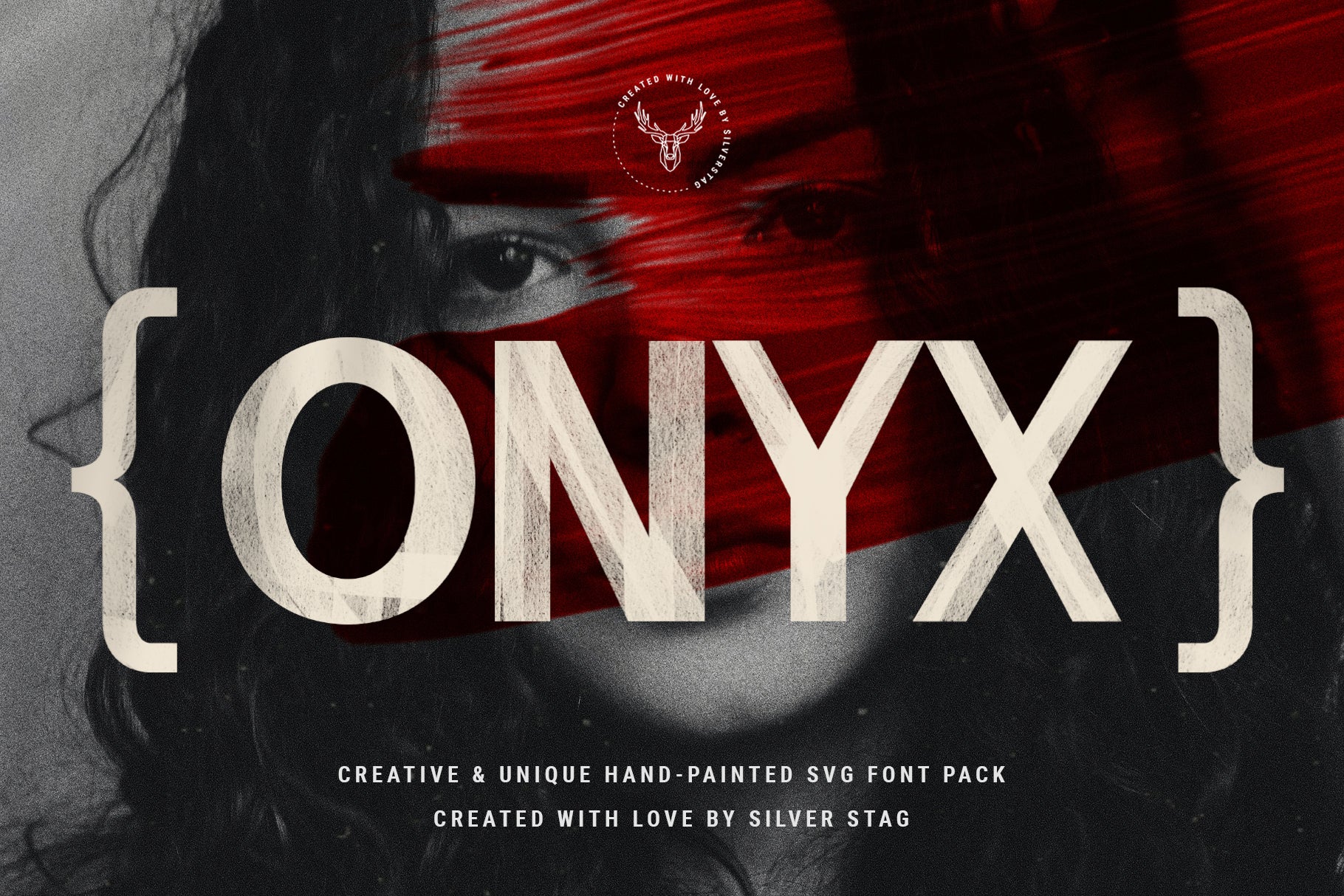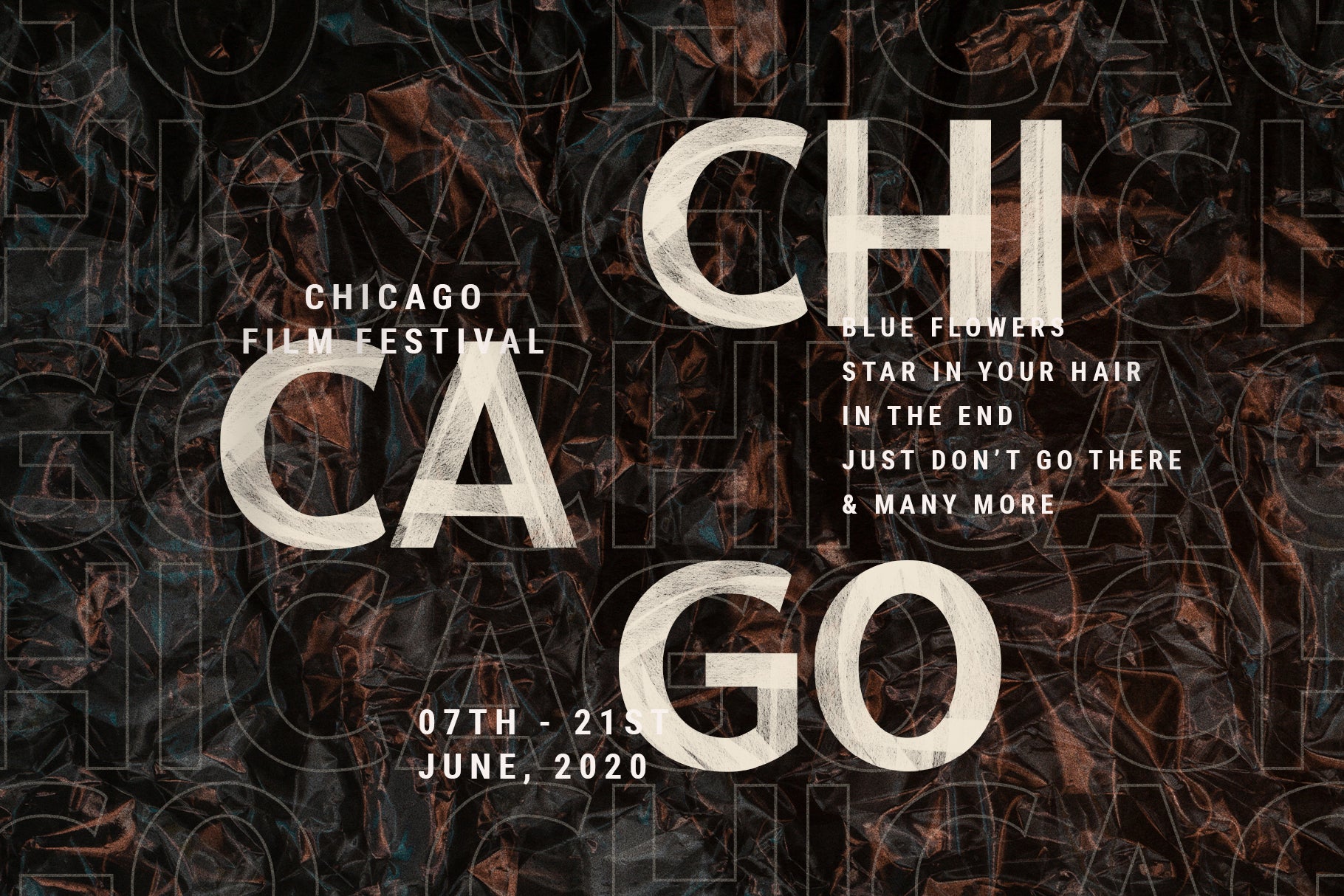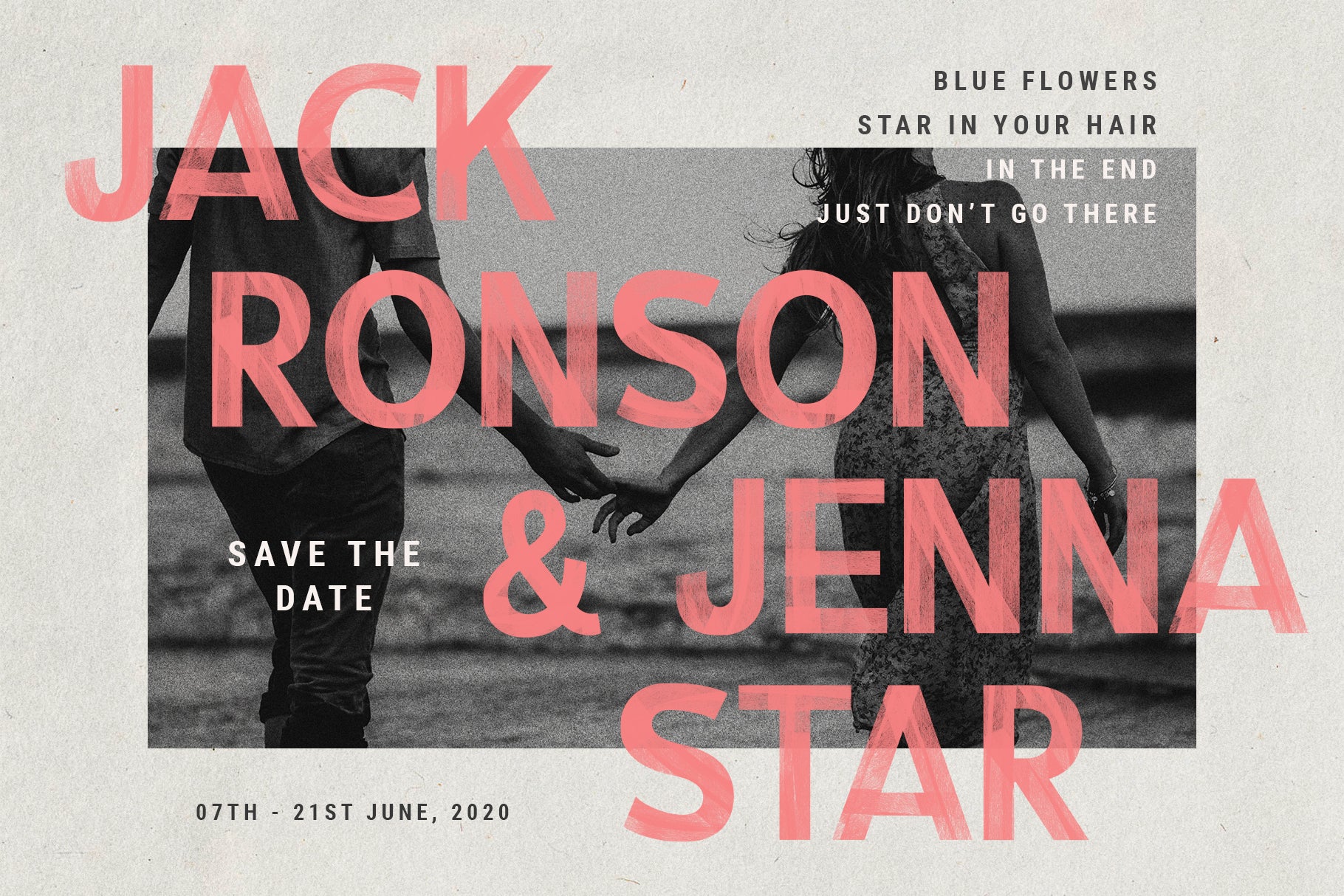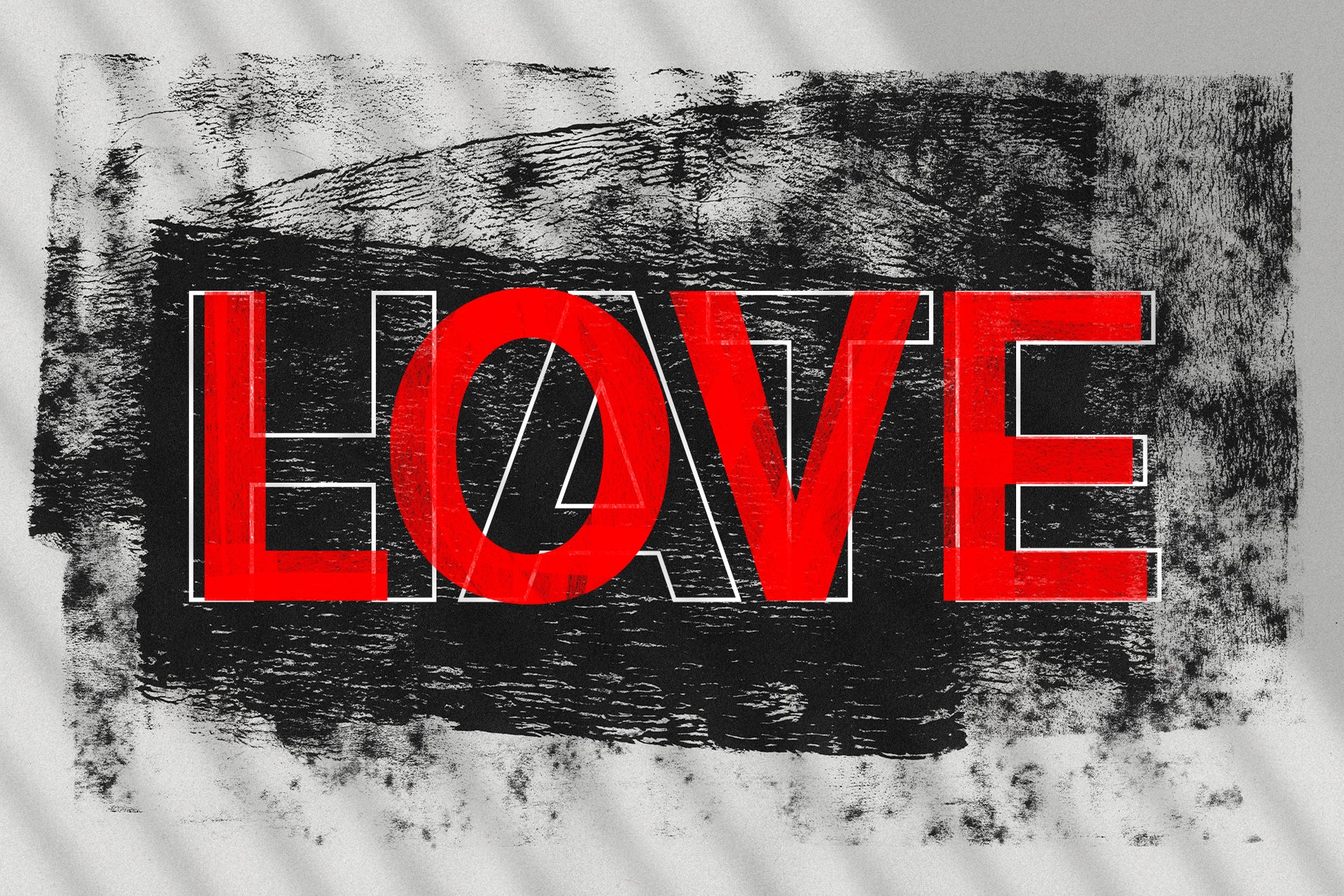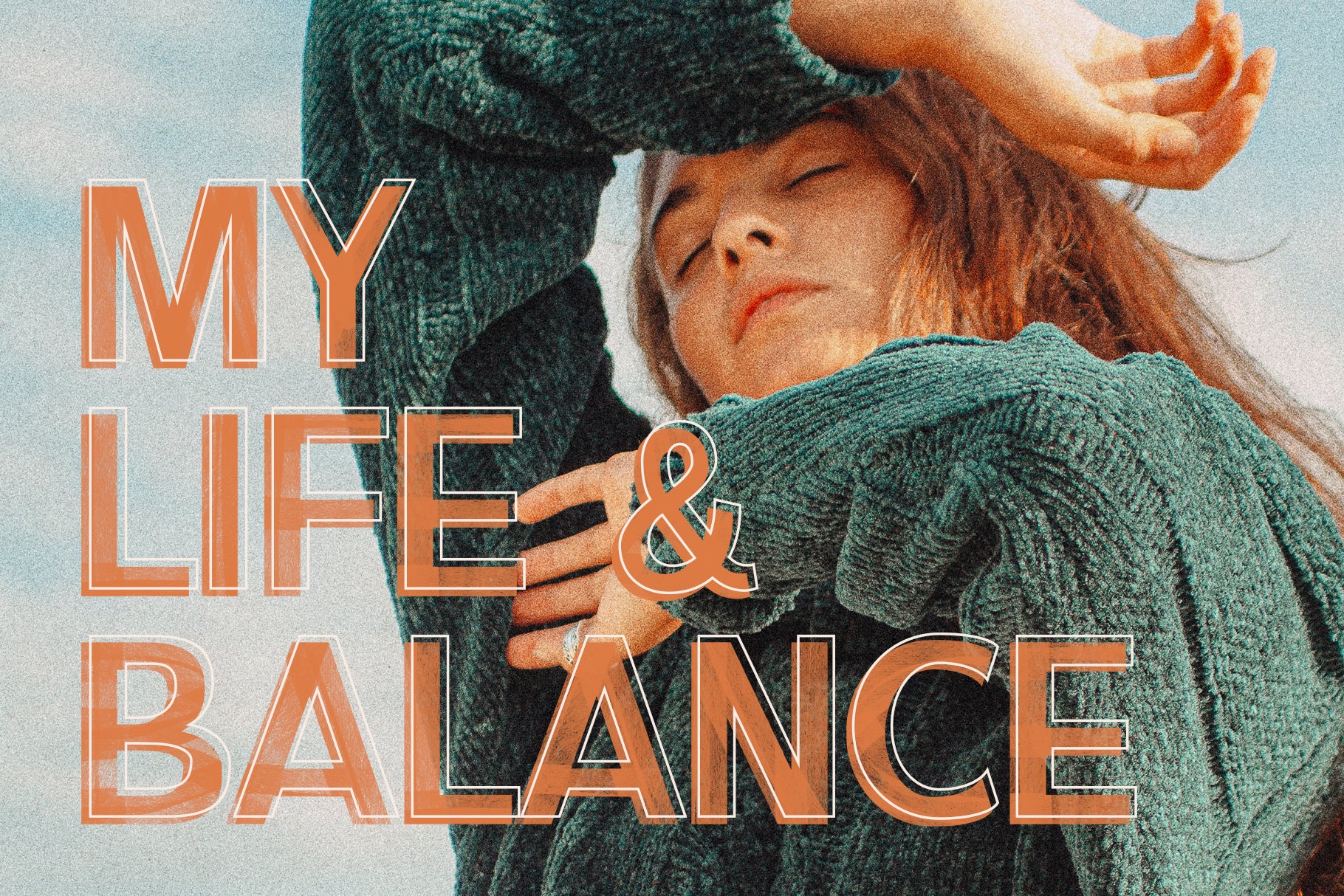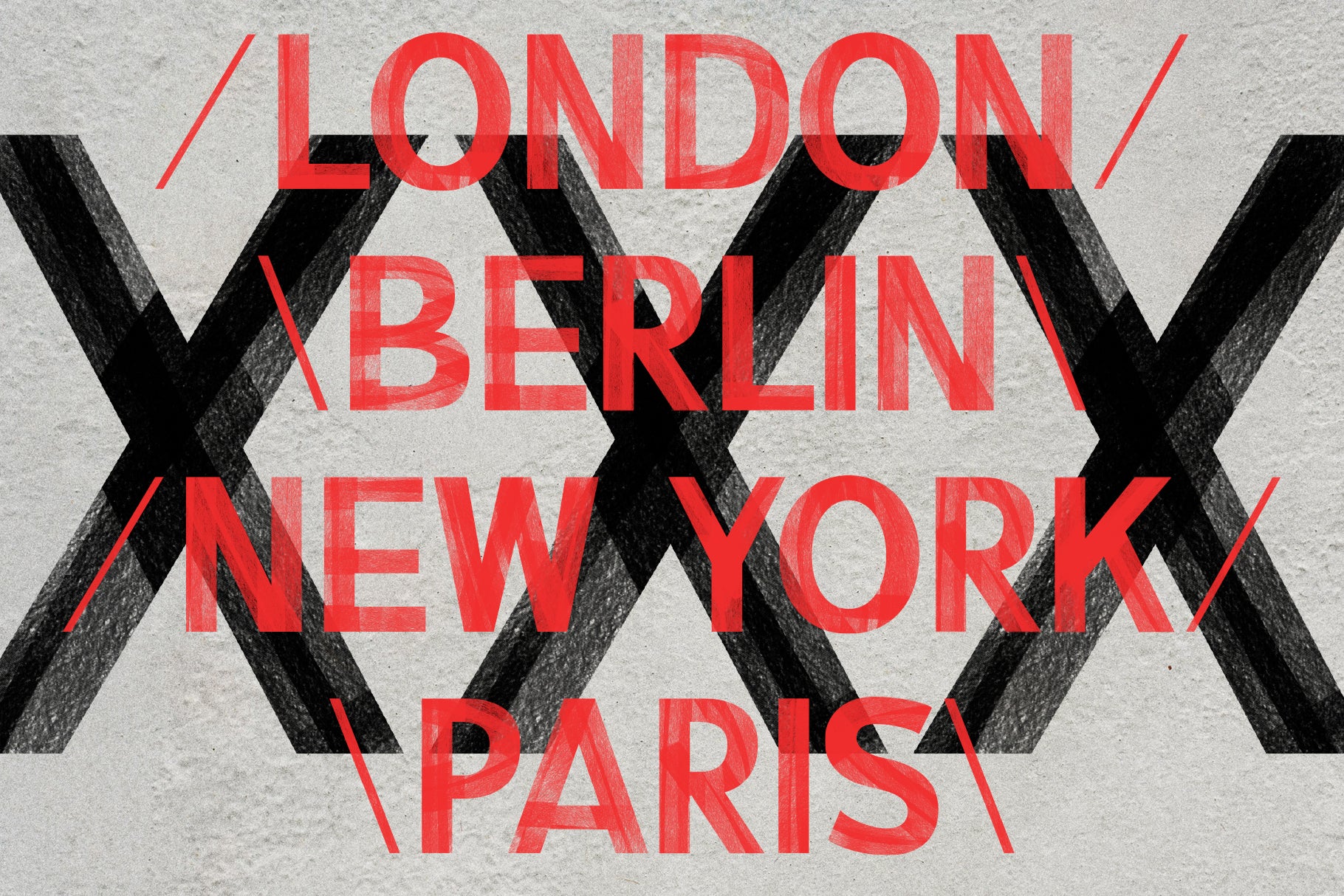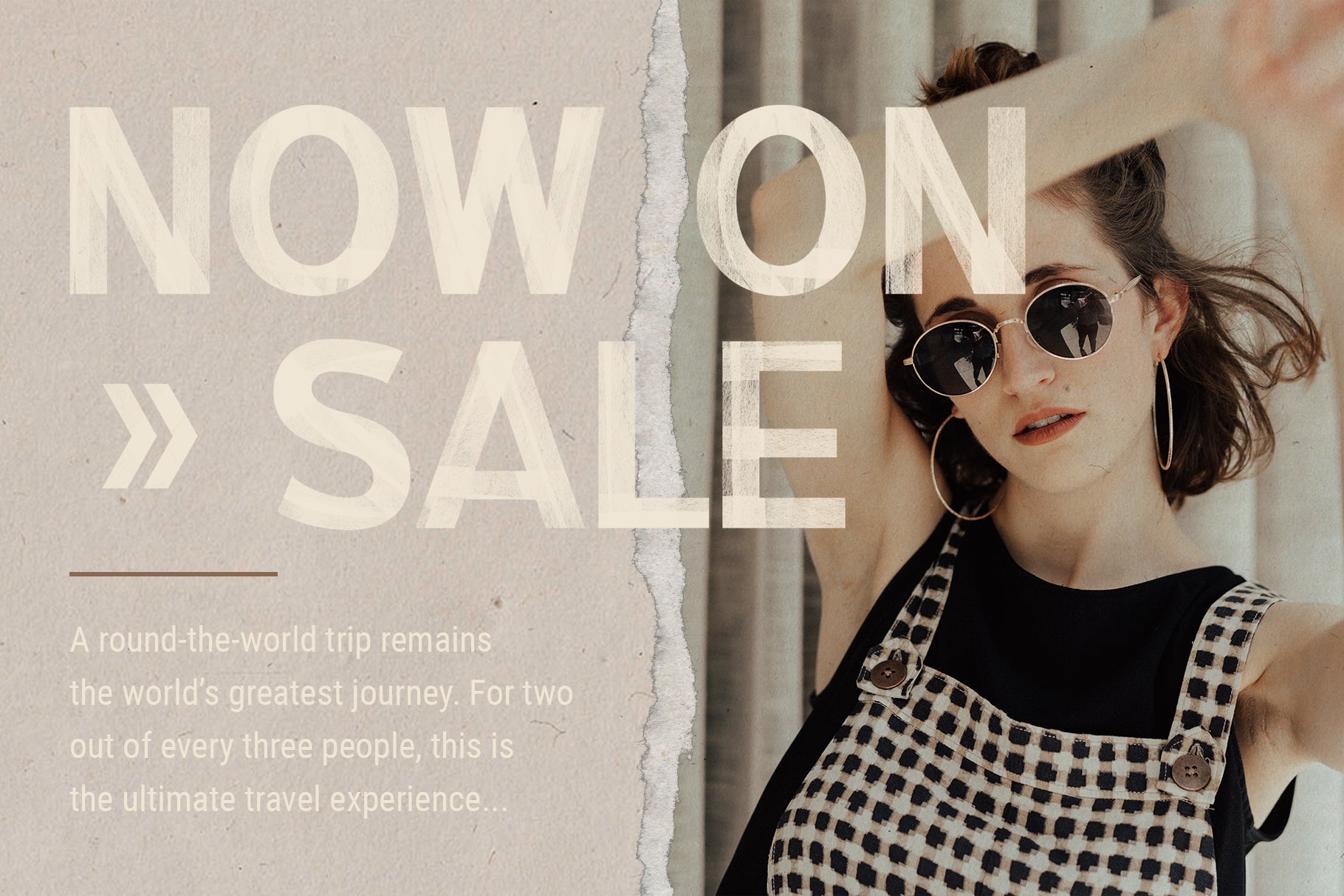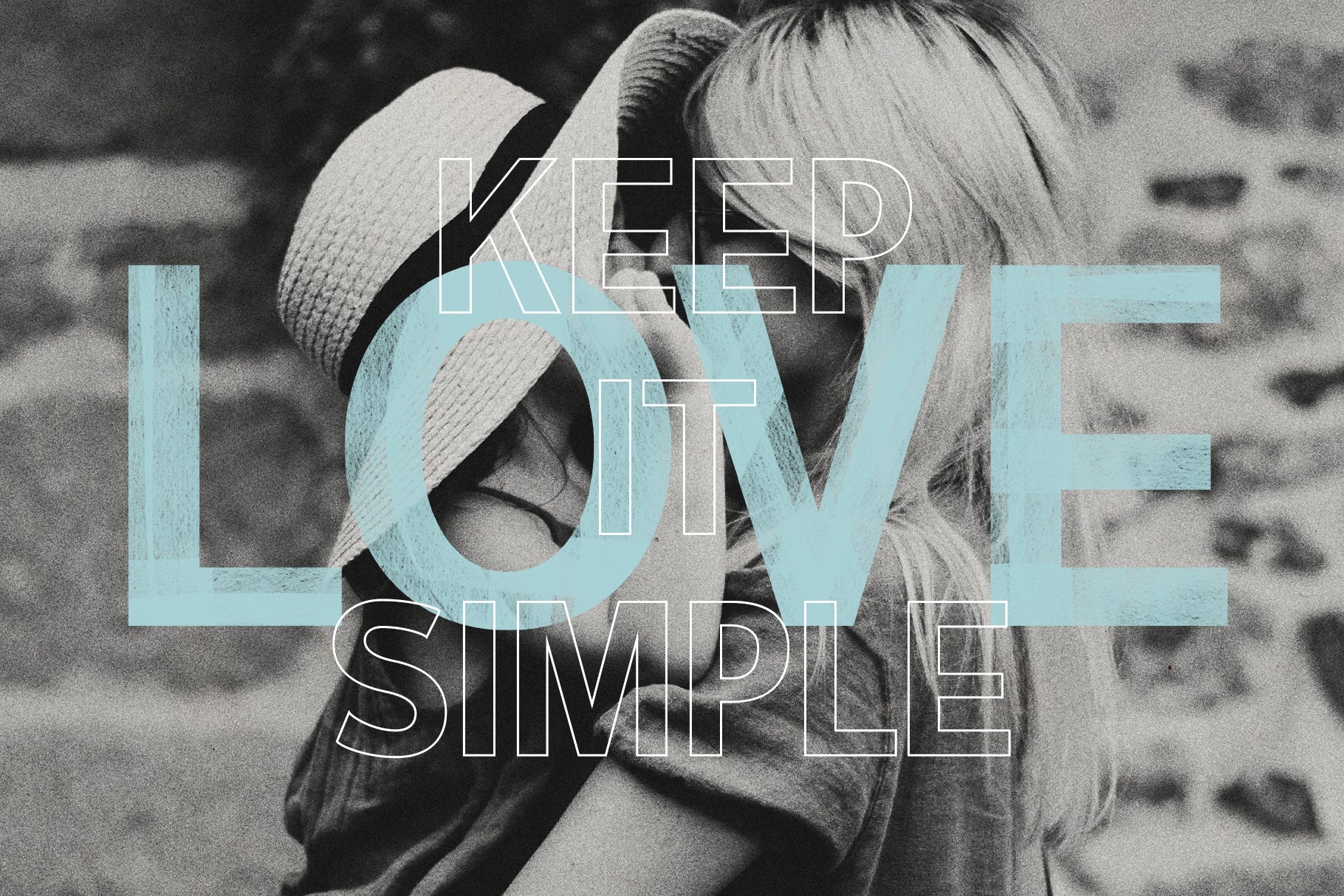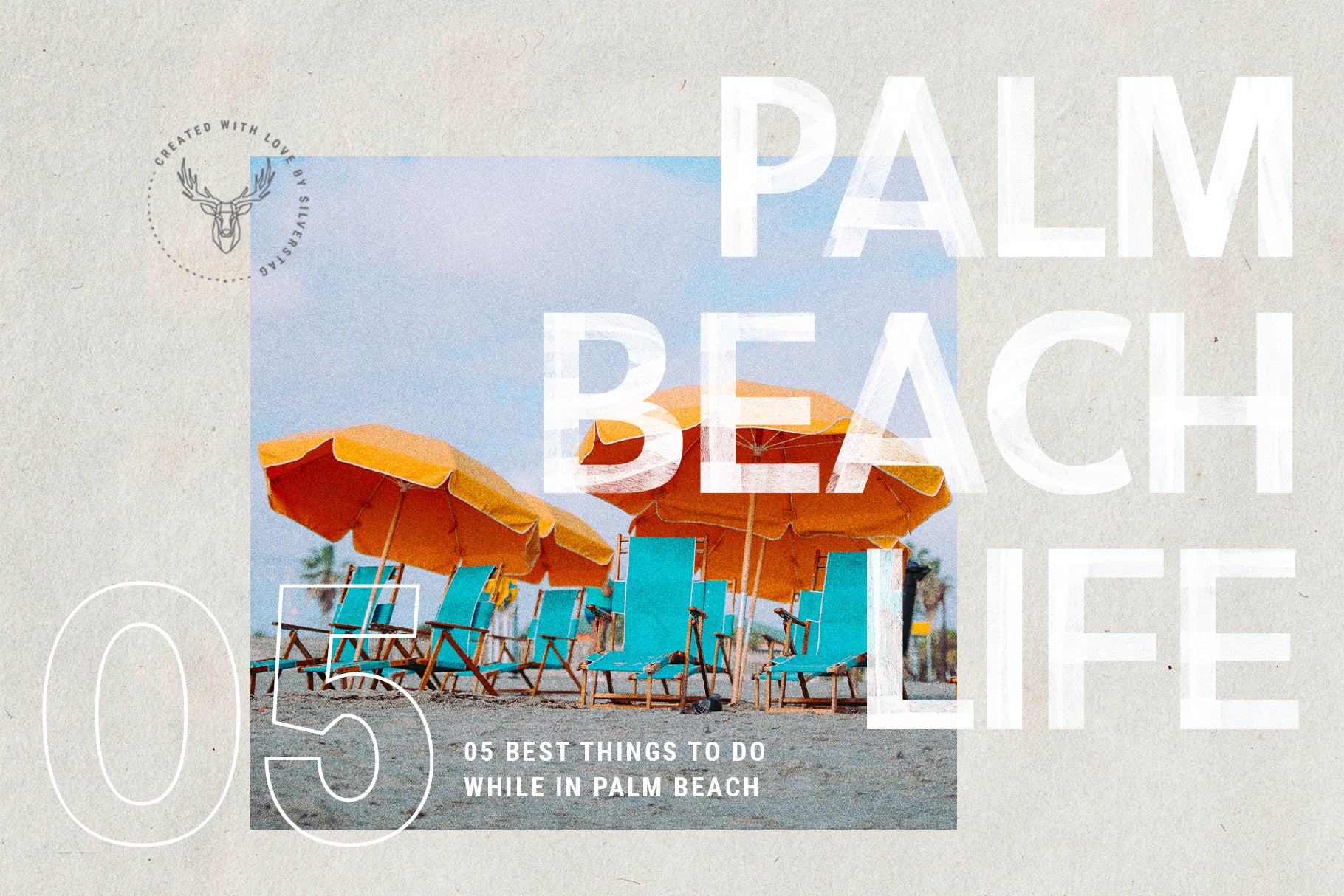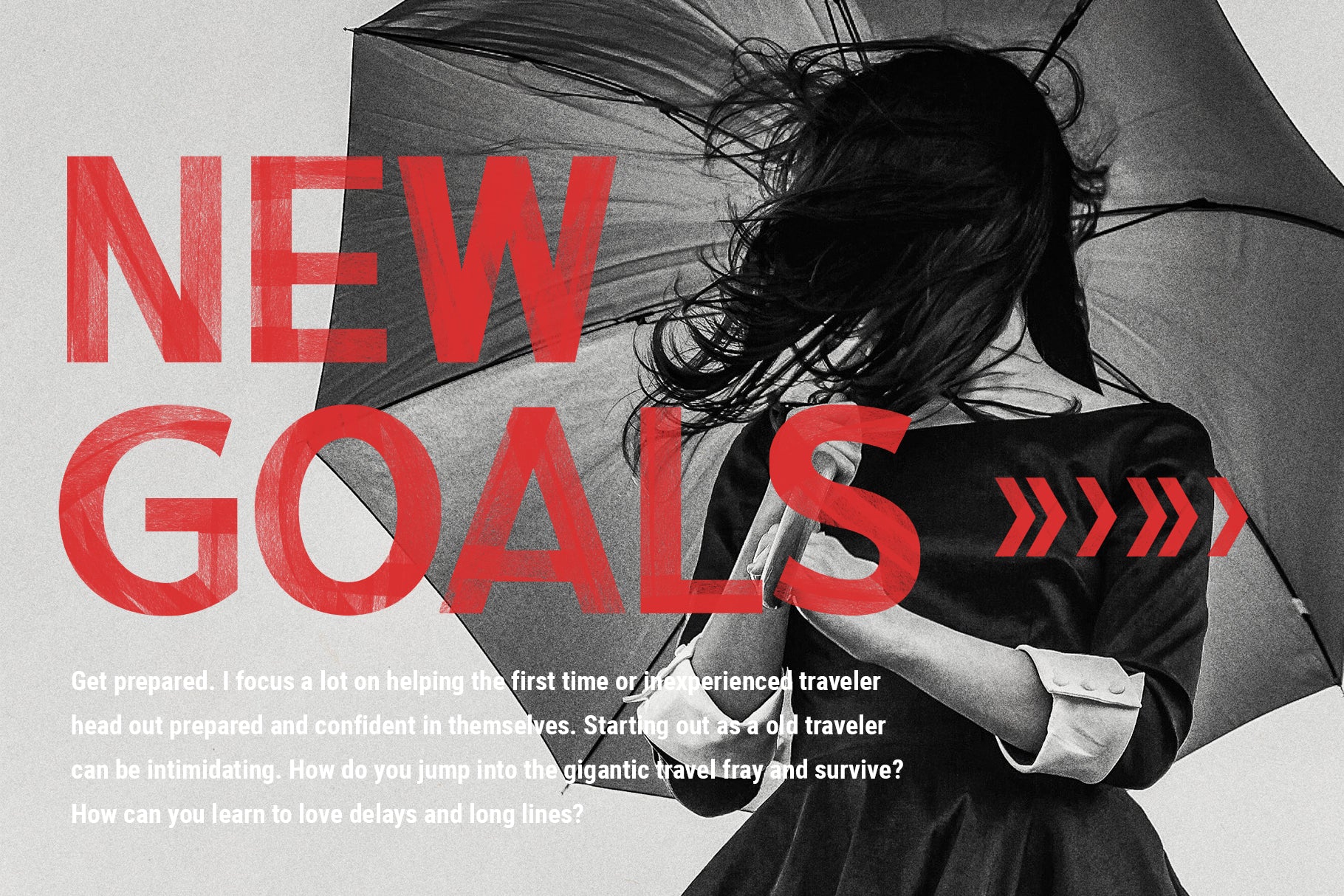
Step out of the ordinary with ONIX, a bold and expressive hand-painted SVG font that breaks away from the expected. This high-resolution font pack includes six creative font styles—two richly textured SVG fonts, two outlined versions, and two standard fallback fonts for universal compatibility.
ONIX is all about artistic rebellion. Each brushstroke is packed with raw personality, offering a unique, organic feel for designers looking to break away from clean, digital perfection. Whether you’re crafting bold social media graphics, experimental branding, edgy posters, or creative packaging, ONIX brings texture and emotion to every project.
This font pack isn’t just different—it’s designed to stand out.